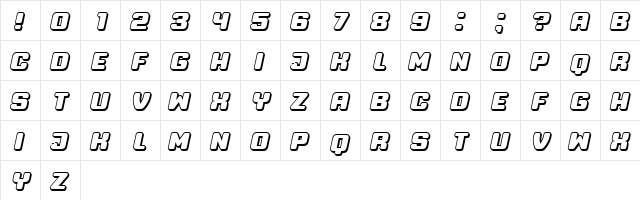
Professor 3D Italic
Design Context for Professor 3D Typeface
Professor 3D is a composed and adaptable typeface that performs quietly and consistently across a wide range of design contexts. The slanted form adds forward momentum and visual energy.
Pro Tip: Try Professor 3D for annotation and caption copy alongside an upright companion — the contrast in angle creates a dynamic but ordered typographic system.